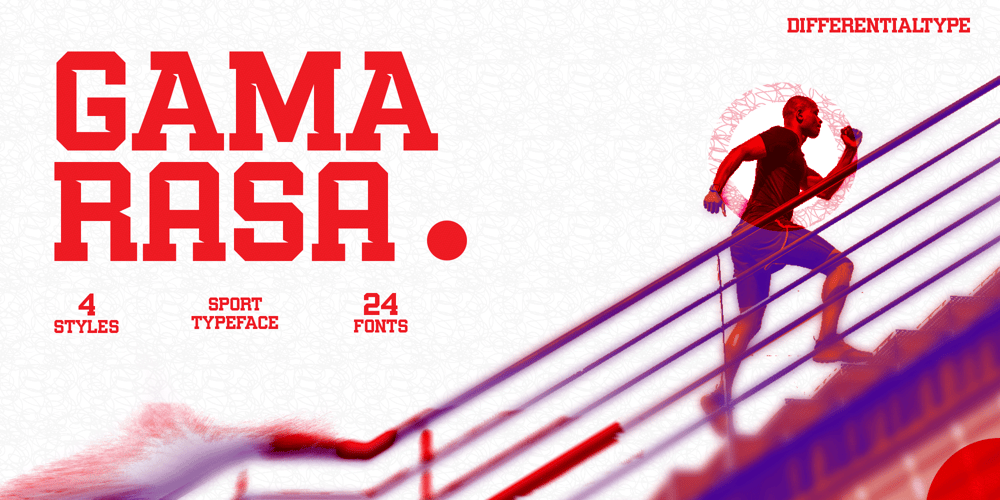
Gamarasa Font Family was designed by Sidik Sidik and published by Differentialtype. Gamarasa contains 24 styles and family package options. Gamarasa is a sports font with a modern design. Gamarasa comes with 4 styles, and 6 weights. Makes it easy for you to combine various styles according to your design needs. Gamarasa is perfect for logotypes, sport branding, posters, apparel designs, labels, and much more.